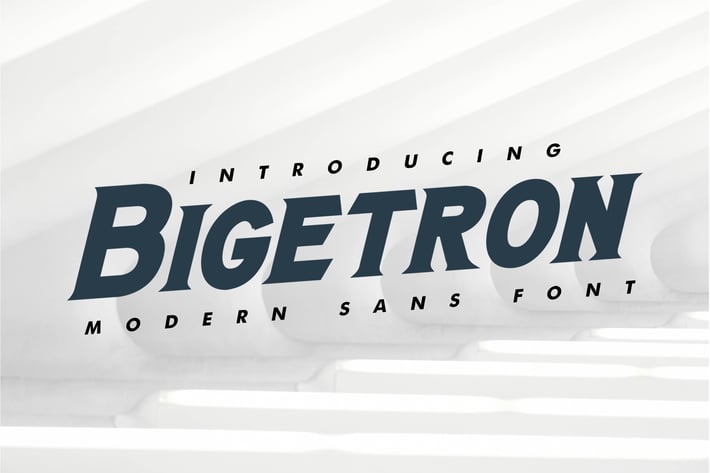
Bigetron - Modern Sans Font
Bigetron is perfect to use for Logotype, Letterhead, Poster, Apparel Design, Label and etc.
The alternative characters were divided into several features such as Stylistic Alternates and Ligature.
Fonts include Multilingual Support